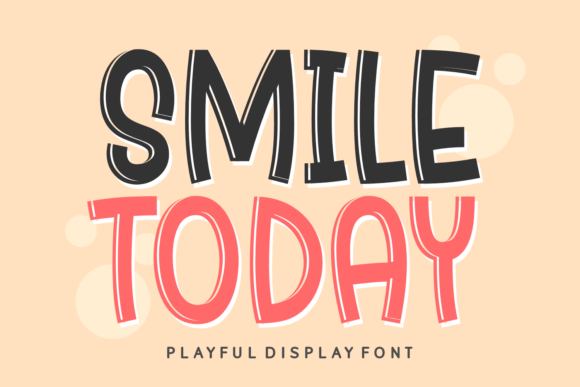
Dive into the joyous realm of Smile Today, where letters twirl and dance in perfect harmony, bringing smiles and laughter to your every project. This display font is a masterpiece of delightful curves and playful details, ready to add a spark of joy and creativity to your designs.
Feel the warmth of Smile Today's cheerful strokes, crafted with the intention of spreading positivity and happiness. Its friendly demeanor makes it the perfect choice for creating designs that connect with your audience on a deeper level, leaving them with a smile that stays.
Unleash your imagination and let Smile Today ignite the boundless possibilities. Whether you're designing logos, posters, social media posts, or website headers, Smile Today will add an irresistible charm that captures hearts and sparks conversations.
Envision your words dancing across the page, infused with the infectious energy of Smile Today. Its bold and expressive strokes command attention, making your messages shine brighter and leaving a lasting impression on your audience.
With Smile Today, you'll discover a world of creative possibilities, limited only by your imagination. Its versatility knows no bounds, adapting seamlessly to a variety of projects, from playful invitations to sophisticated presentations.
Don't let dull and ordinary fonts hold you back. Embrace the magic of Smile Today and let your designs bloom with joy and creativity. It's the perfect choice for adding that special touch to your projects, making them stand out from the crowd and leaving a lasting impact.